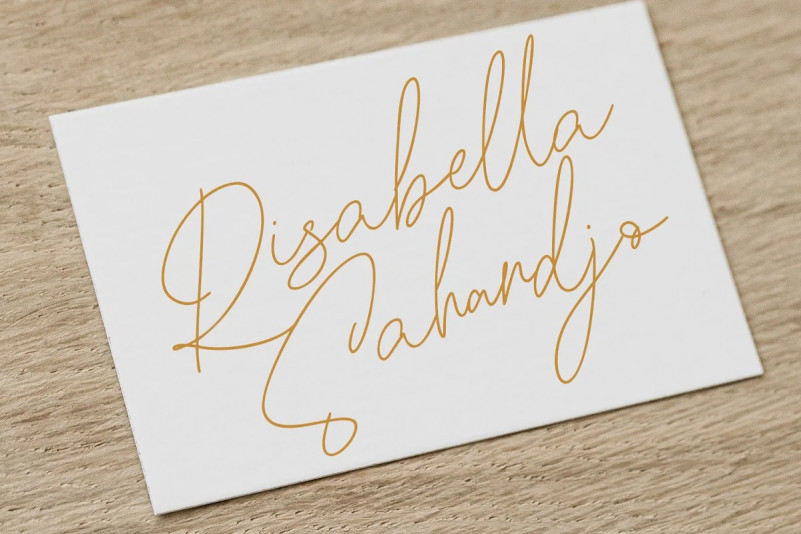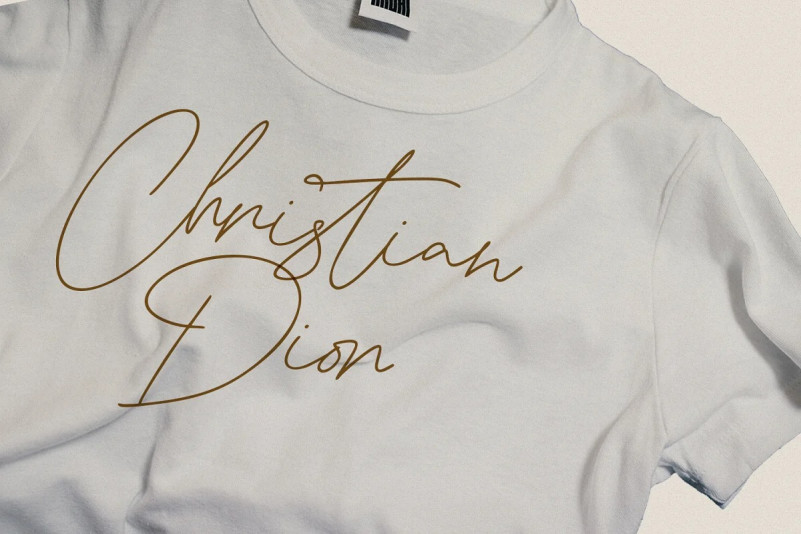
Sigarette Handwritten Font
Sigarette is a classy signature font with a unique and elegant style. It’s the ideal font for adding a touch of sophistication to any design project!